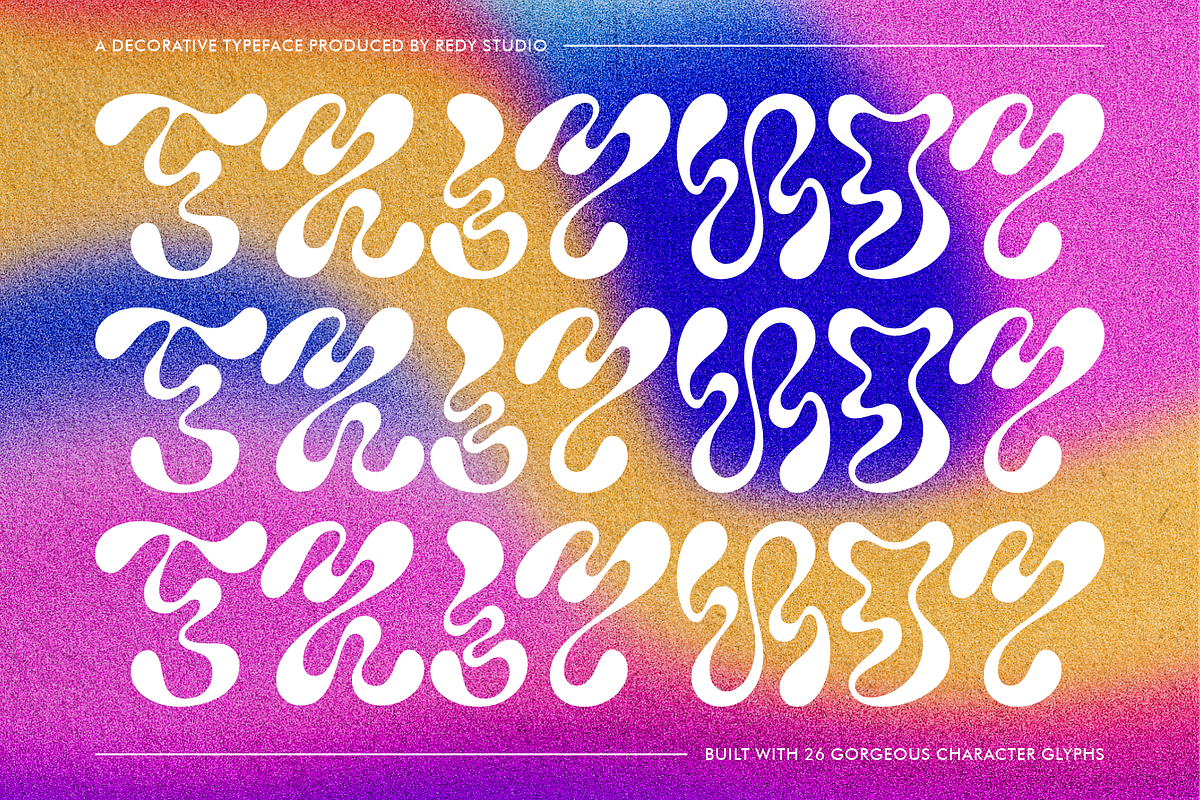
TRIPHOP Font is perfect for electronic music branding, urban culture promotions, contemporary art projects, nightlife event graphics, modern record label materials, hip-hop inspired designs, alternative music posters, underground scene marketing, electronic artist logos, progressive brand identities, experimental design projects, and cutting-edge creative communications.
TRIPHOP Font is exciting because it embodies the innovative spirit and electronic sophistication of trip-hop culture through its distinctive letterforms that capture the genre's fusion of hip-hop rhythms, electronic experimentation, and atmospheric soundscapes in visual form. This groundbreaking typeface features unique character shapes with urban edge and electronic precision that reflect the genre's pioneering approach to music production and cultural expression. The font's experimental aesthetic speaks directly to audiences who appreciate musical innovation, urban culture, and the creative boundaries that define contemporary electronic music.
TRIPHOP Font includes comprehensive font families: Regular Electronic Style, Bold Beat Weight, Light Ambient Touch, Medium Rhythm Balance, Italic Flow Movement, Condensed Urban Format, Extended Atmospheric Width, Distressed Underground Version, Clean Digital Alternative, and Special Music Symbols, providing complete solutions for electronic music and urban culture design projects that celebrate innovation and experimental creativity.
This innovative typography solution transforms ordinary communications into electronic music experiences through its authentic trip-hop aesthetic and experimental design language. TRIPHOP Font Free Download enables designers and music brands to access premium electronic typography that instantly adds innovation, urban edge, and musical sophistication to any creative project. The font's carefully crafted electronic elements ensure authentic music culture character while maintaining excellent readability and distinctive experimental presence.
Electronic music labels, urban brands, and alternative culture businesses trust TRIPHOP Font for its ability to communicate innovation, authenticity, and electronic sophistication to audiences seeking genuine music culture experiences and experimental artistic expression. The typeface's experimental construction performs exceptionally well across various applications, from intimate music communications to large-scale electronic culture campaigns. Its extensive character support includes multilingual capabilities and music-themed design elements that enhance authentic electronic brand presentations.
The creative inspiration behind TRIPHOP Font draws from the pioneering electronic music movement, urban culture aesthetics, and the experimental spirit that continues to push musical and visual boundaries. This innovation-focused approach creates a font that feels genuinely electronic while maintaining contemporary relevance across different music contexts and experimental brand expressions.
Whether creating electronic music identities, urban culture materials, or experimental design campaigns, this font delivers exceptional results that capture the essence of trip-hop innovation and electronic sophistication. Download TRIPHOP Font today and discover how premium electronic typography can transform your design projects into innovative expressions of musical culture, urban creativity, and the experimental spirit that defines the most groundbreaking electronic music and contemporary artistic movements.